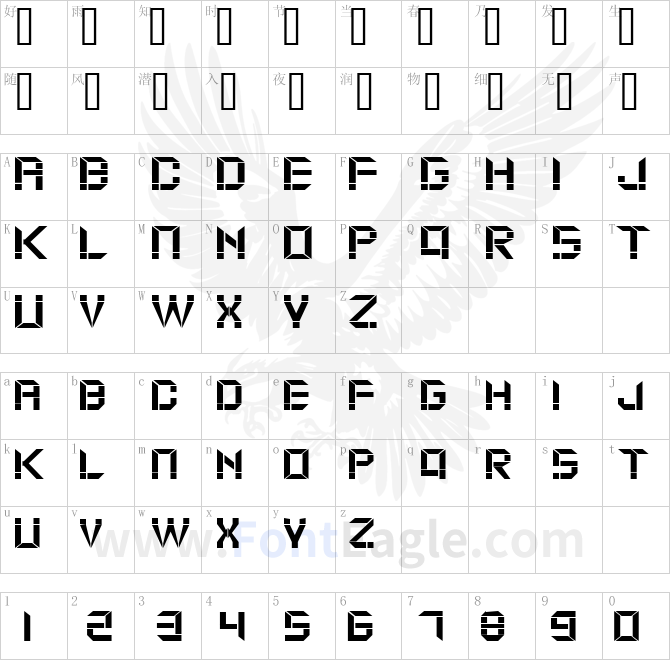
- Font name:Moduldama
Moduldama-Regular is a great font, widely used in graphic design, single-page menu design, poster design and other fields, and is deeply loved by designers.Moduldama-Regular download.